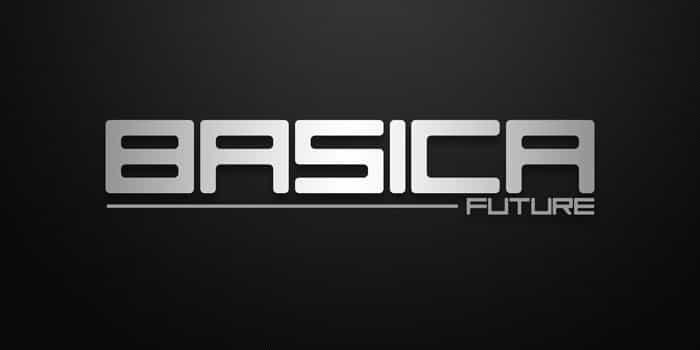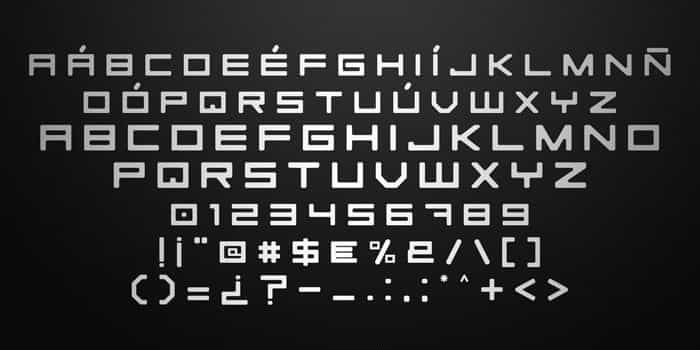
Basica is a straightforward display typeface that is cute and simple. It’s ideal for headlines, large text, logotypes, branding and display use. This typeface is an excellent option for designing stunning logos, promotional material or marketing images that provide a unique and modern look.